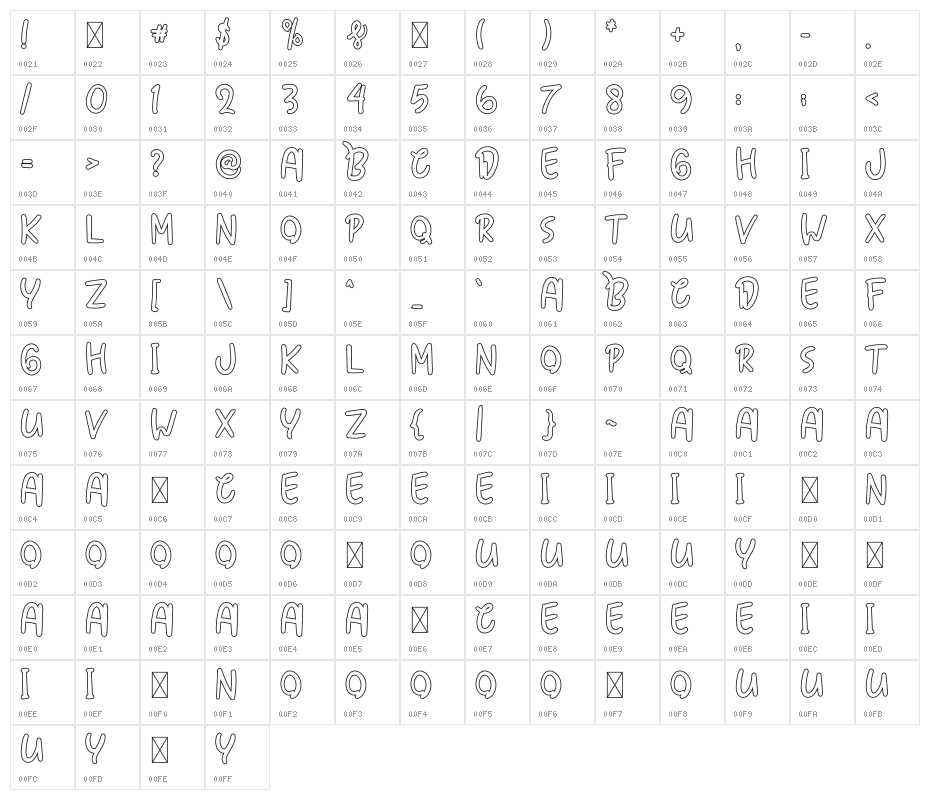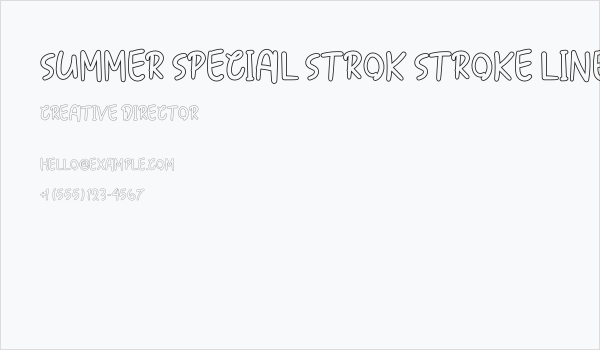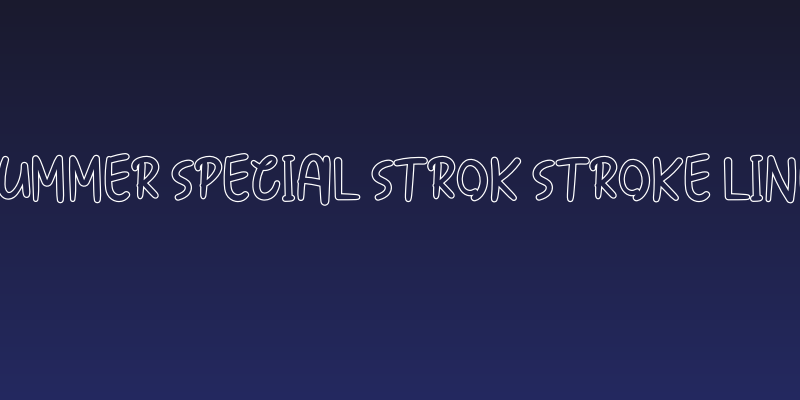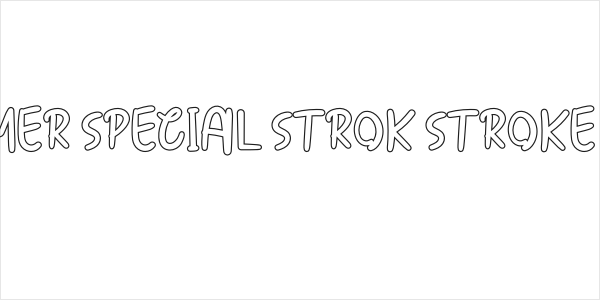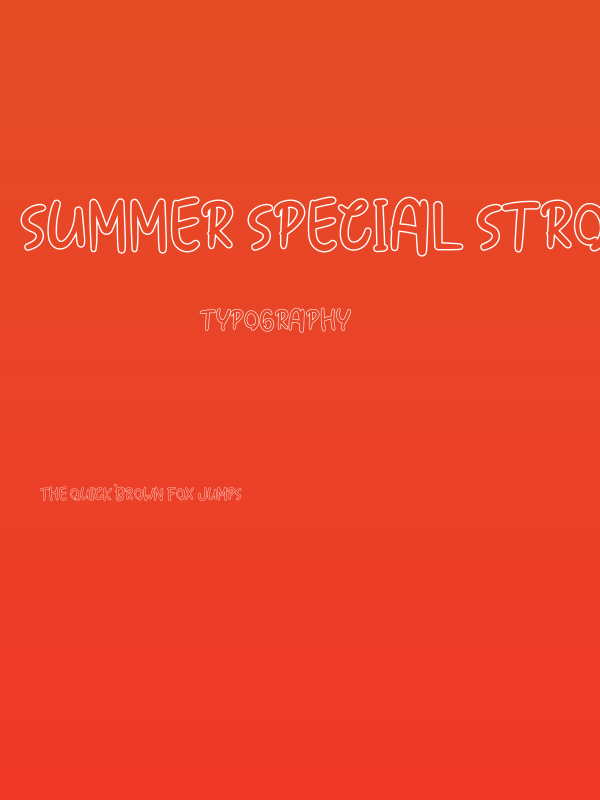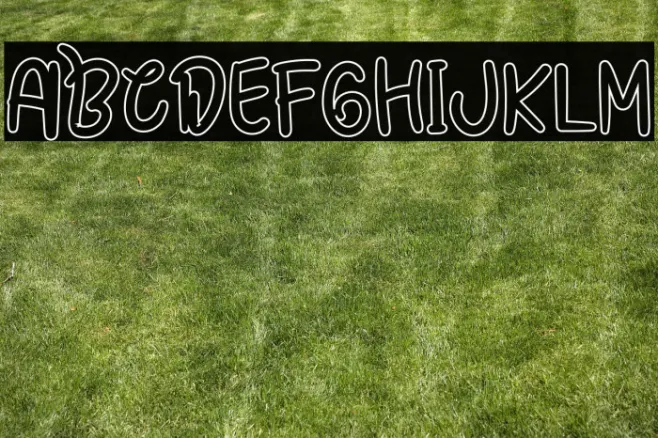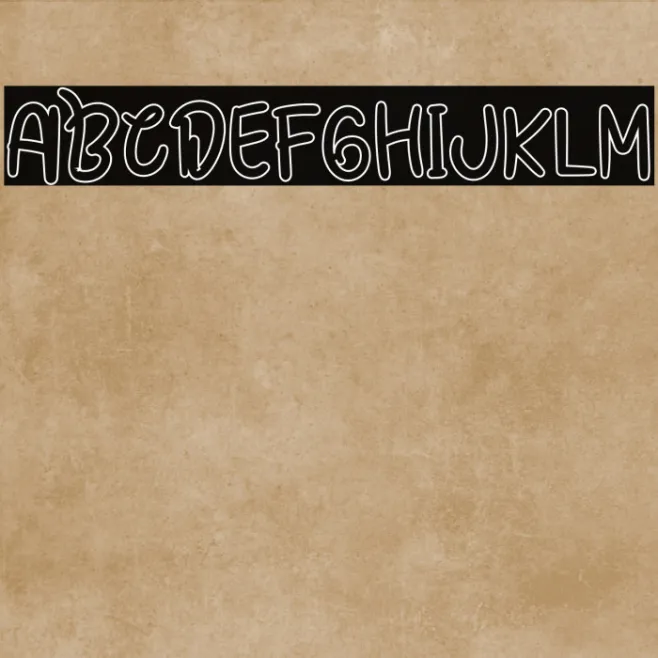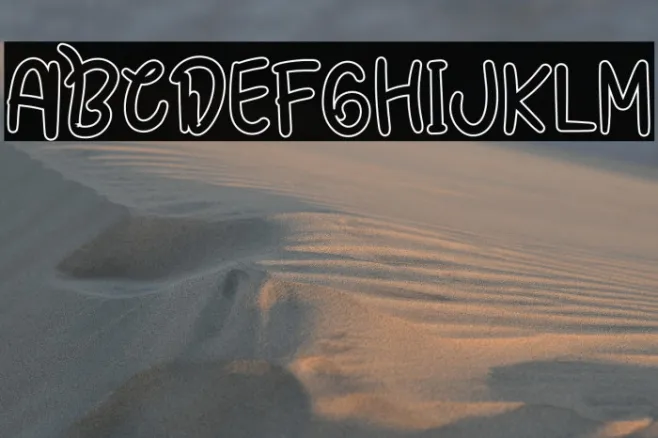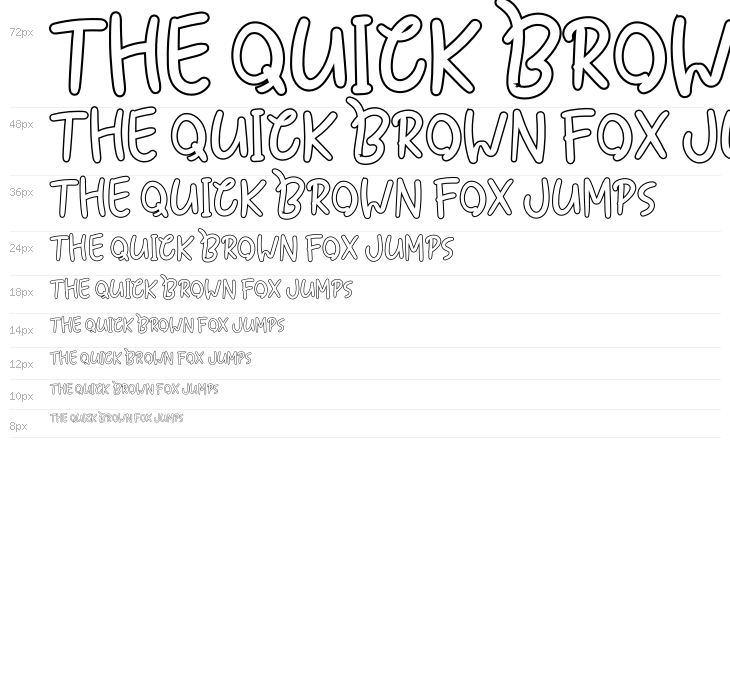
Summer Special Strok Stroke Line Font
Summer Special Strok Stroke Line Description
This playful and dynamic font features a bold, outlined style that gives each character a sense of movement and energy. The letters are designed with a consistent stroke width, creating a cohesive and harmonious look. The uppercase and lowercase letters maintain a uniform height, while the numerals and special characters are crafted to match the overall aesthetic. The font's design is reminiscent of hand-drawn or doodle art, making it perfect for projects that require a fun and informal touch. Its clear and legible form ensures readability while adding a unique flair to any text.
| Overall Style | Playful, Hand-drawn |
| Proposed Projects | Ideal for children's books, playful branding, event posters, and creative social media graphics. |